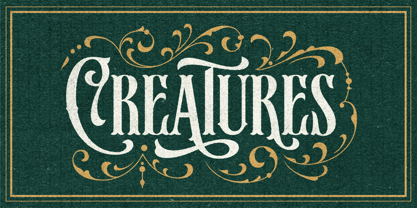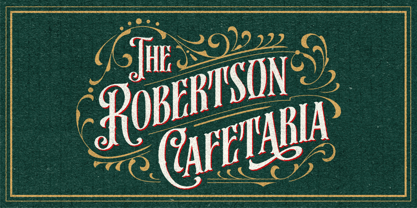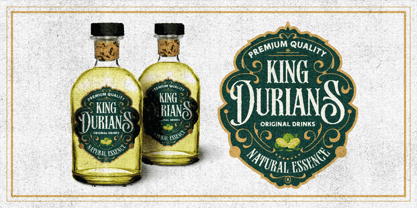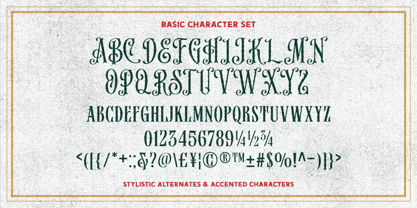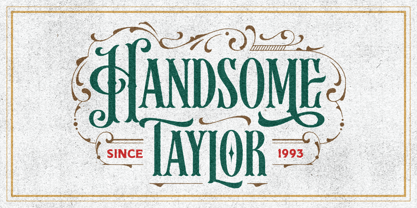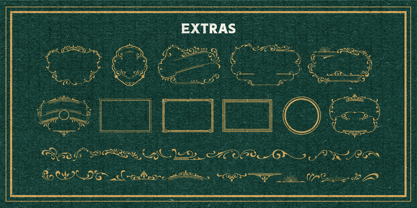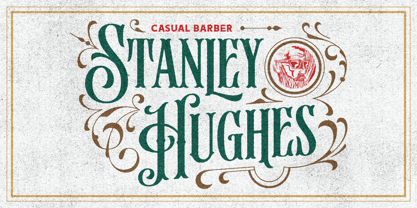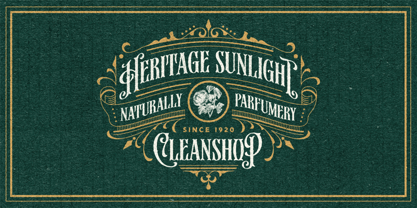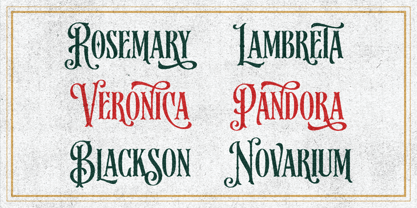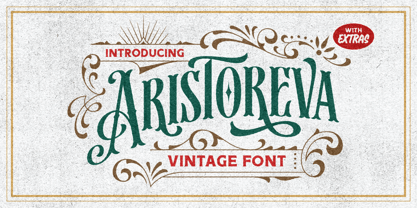
Aristoreva
by Arterfak Project
The Aristoreva Font Family was designed by Ahmad Ramzi Fahruddin and published by Arterfak Project. Aristoreva contains 2 styles and family package options.
Introducing Aristoreva, a decorative vintage font inspired by the timeless charm of Victorian typography and Art Nouveau from the 19th century.
Collected from many references such as vintage signage, logos, badges, and old-fashioned graphics, Aristoreva has been meticulously crafted with medium-detailed ornaments and additional swashes, making it effortless to create elegant vintage typography.
This condensed font is designed for large displays, ensuring it stands out beautifully in any project. Aristoreva is perfect for posters, labels, logos, signboards, book covers, decorations, merchandise, and more!
- All-caps characters set
- Numbers, symbols, punctuation
- Stylistic alternates
- Multilingual support.